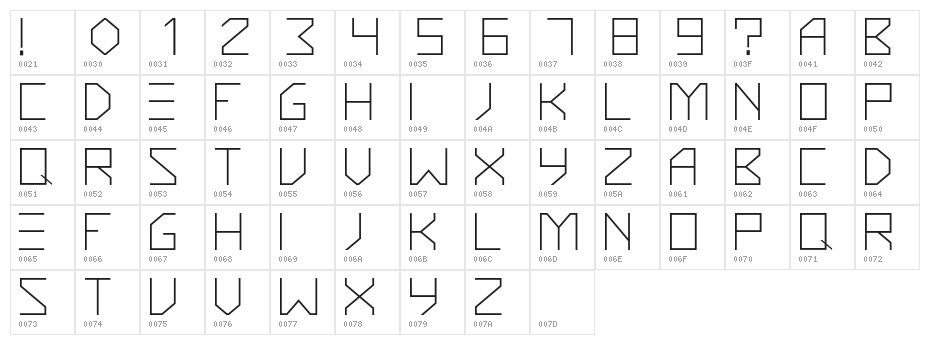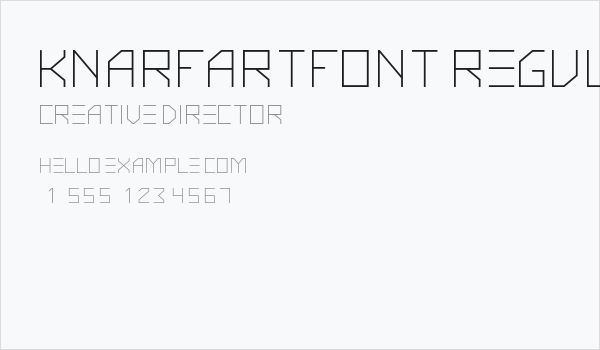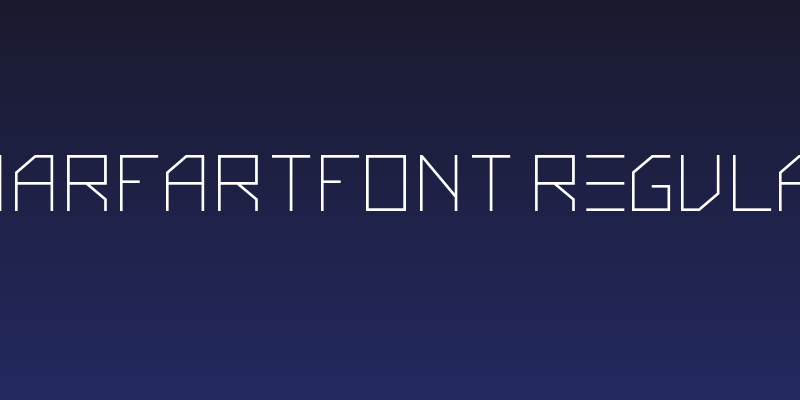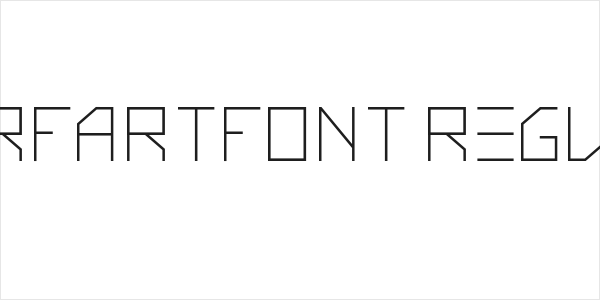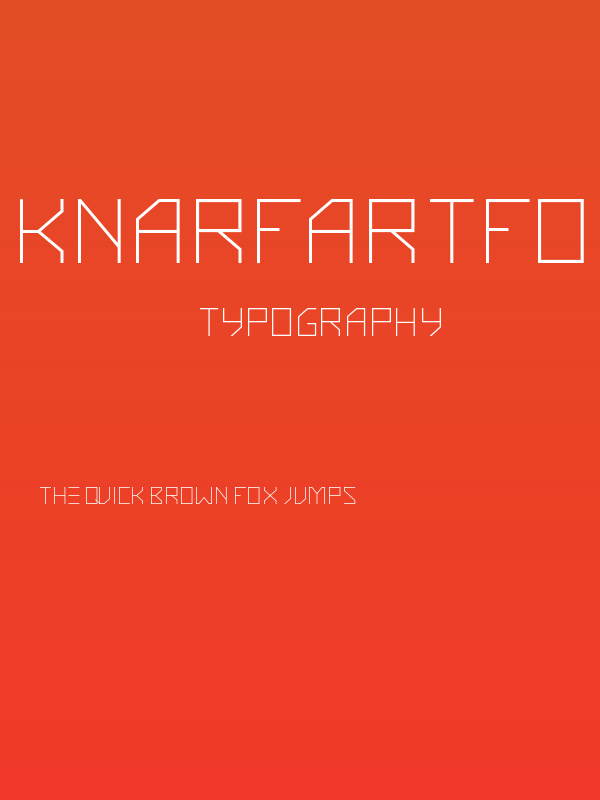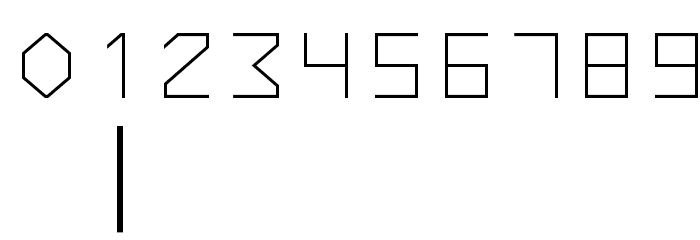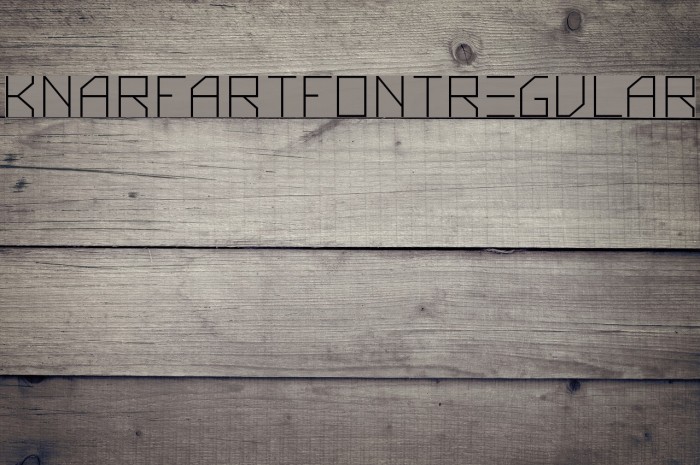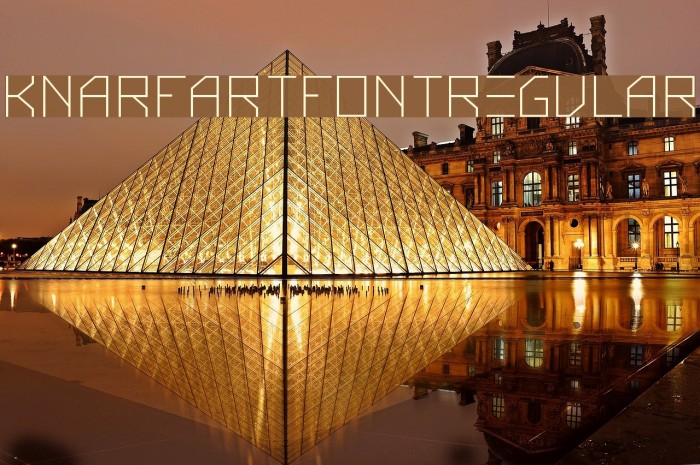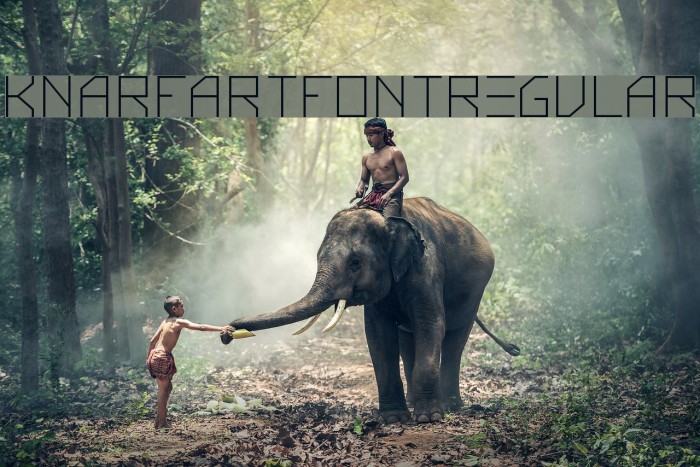
KnarfArtFont-Regular Font
KnarfArtFont-Regular Description
This font features a geometric and angular design, characterized by its sharp edges and straight lines. The letters are constructed with a consistent stroke width, giving it a uniform appearance. The uppercase letters are distinct and easily recognizable, with a futuristic and technical aesthetic. The numerals follow the same design principles, maintaining clarity and readability. The overall style is minimalistic, with a focus on precision and structure, making it suitable for modern and tech-oriented projects.
| Proposed Projects | Ideal for tech branding, digital interfaces, modern posters, and futuristic design projects. |